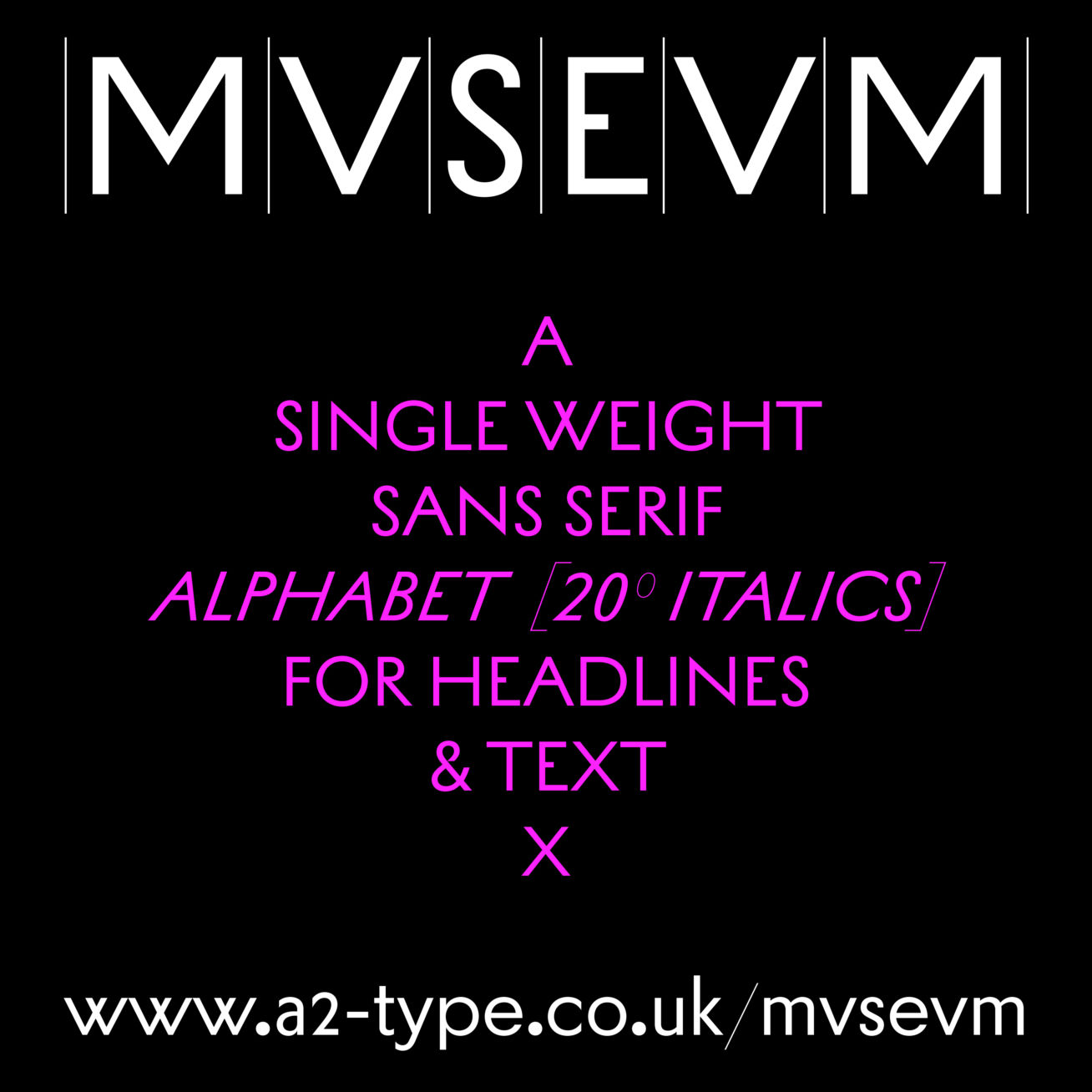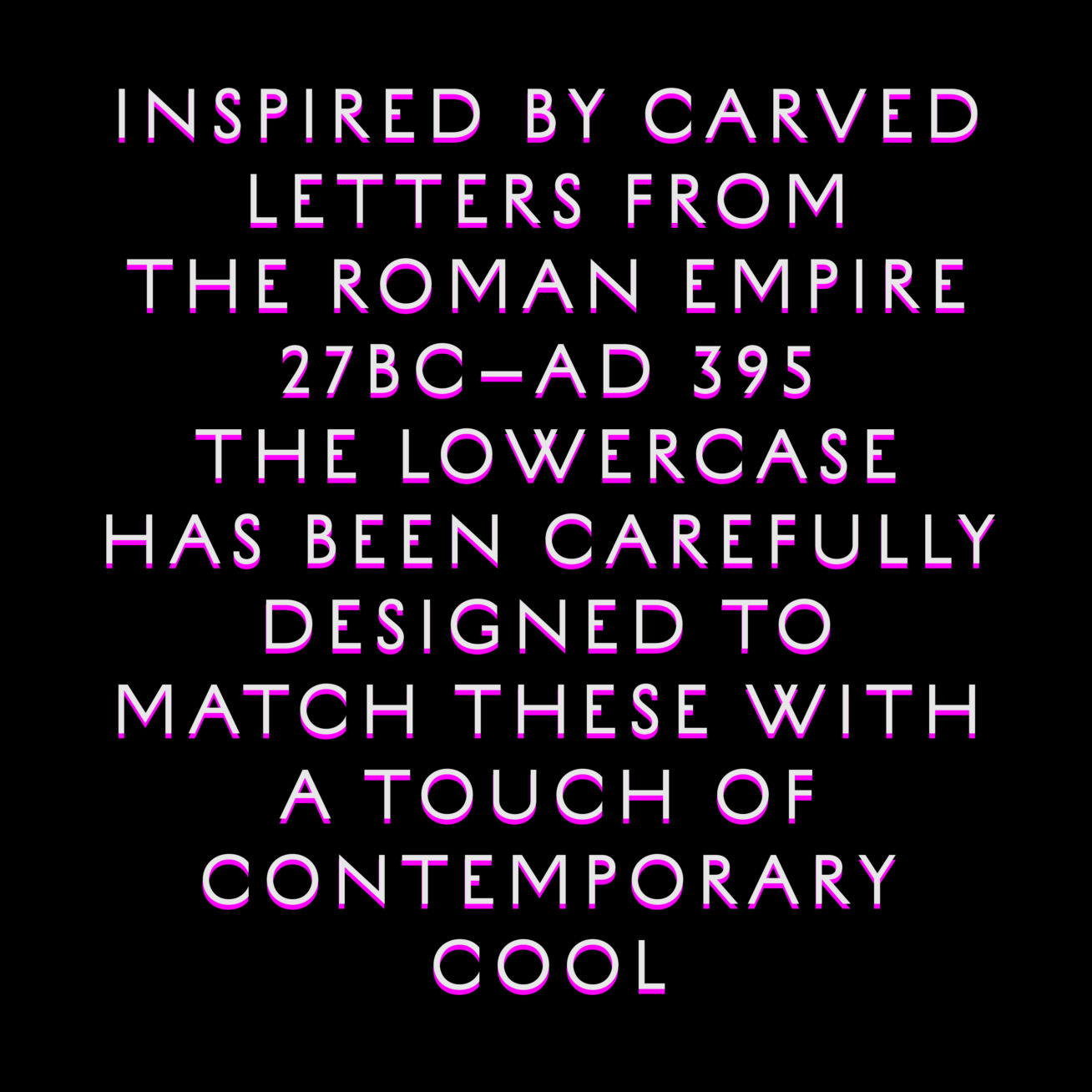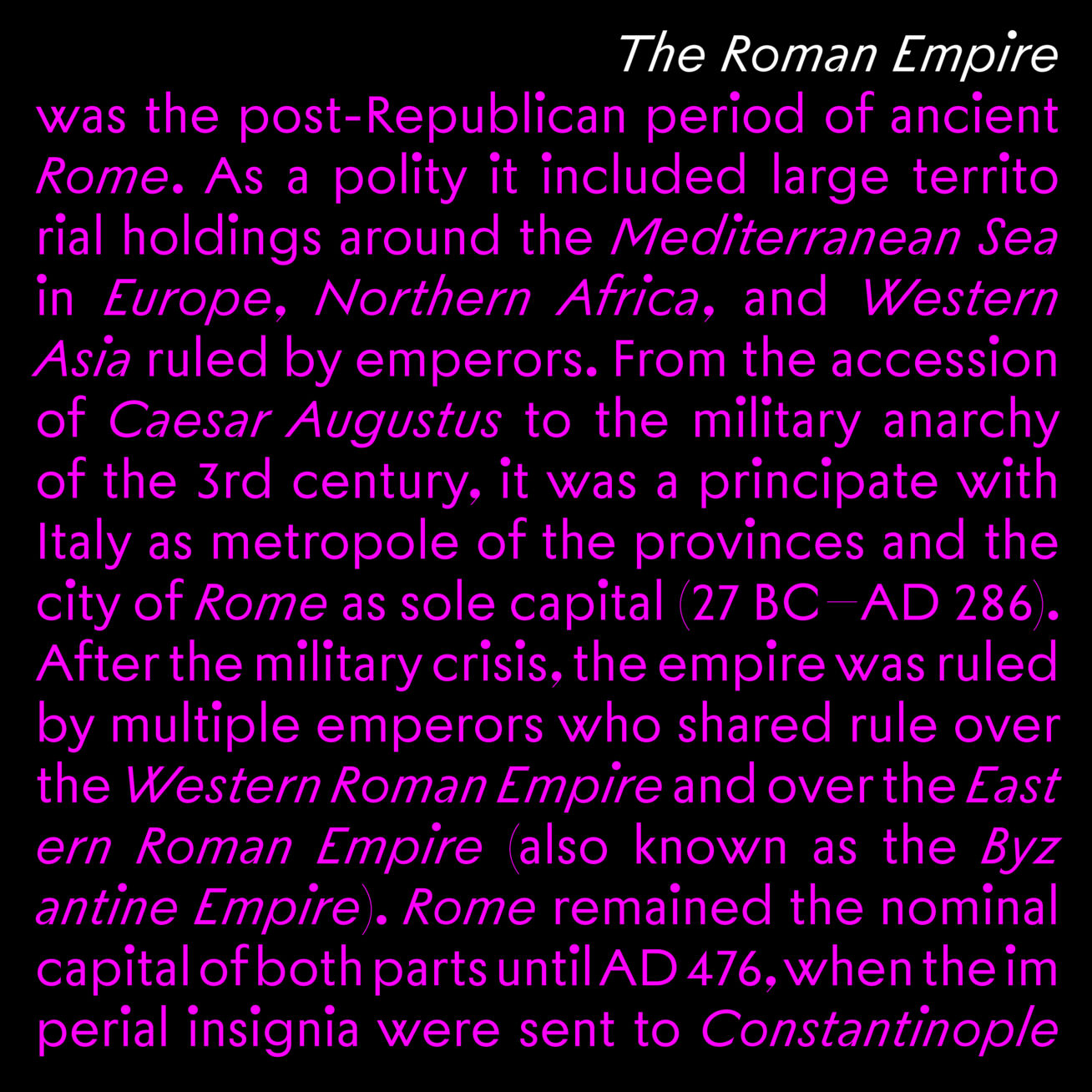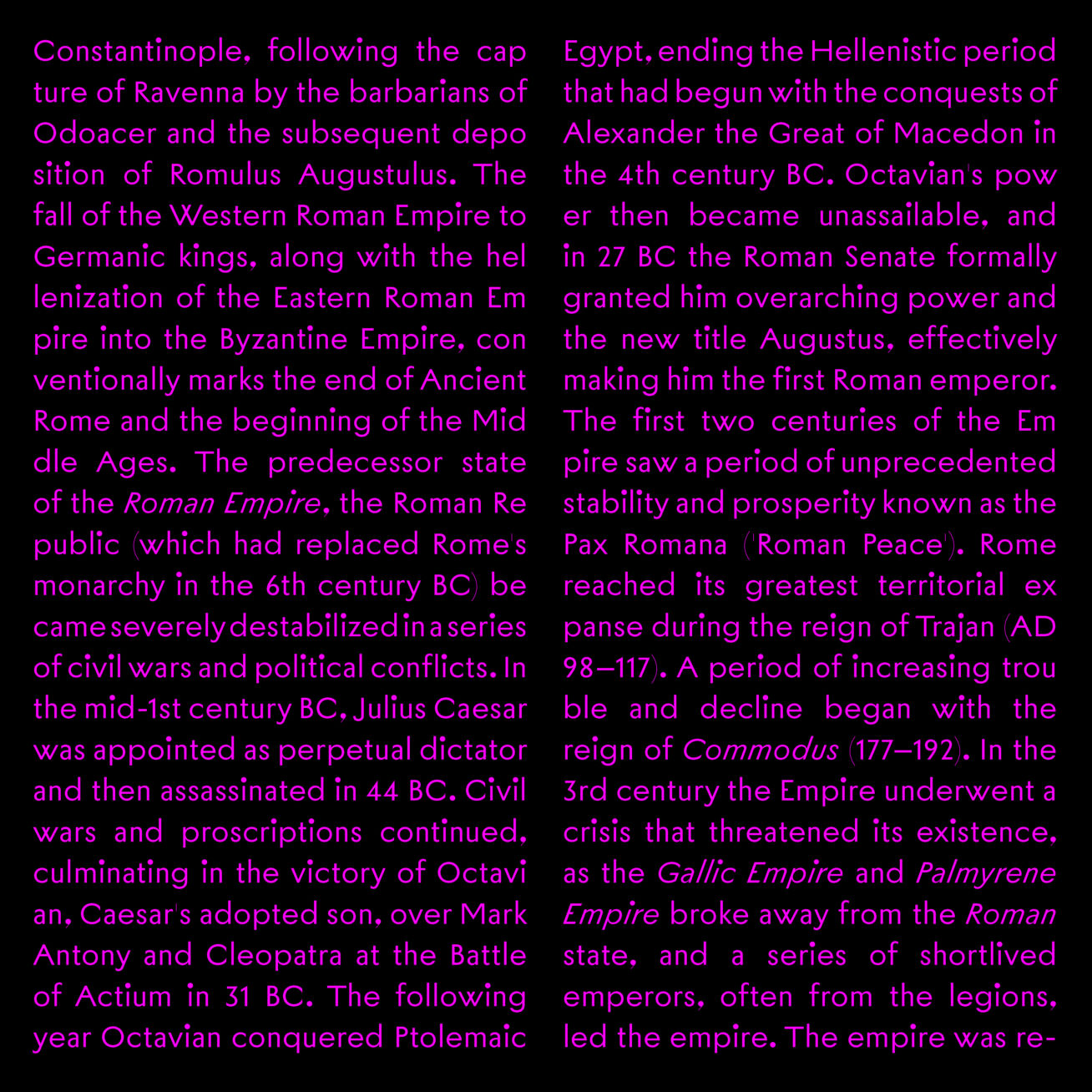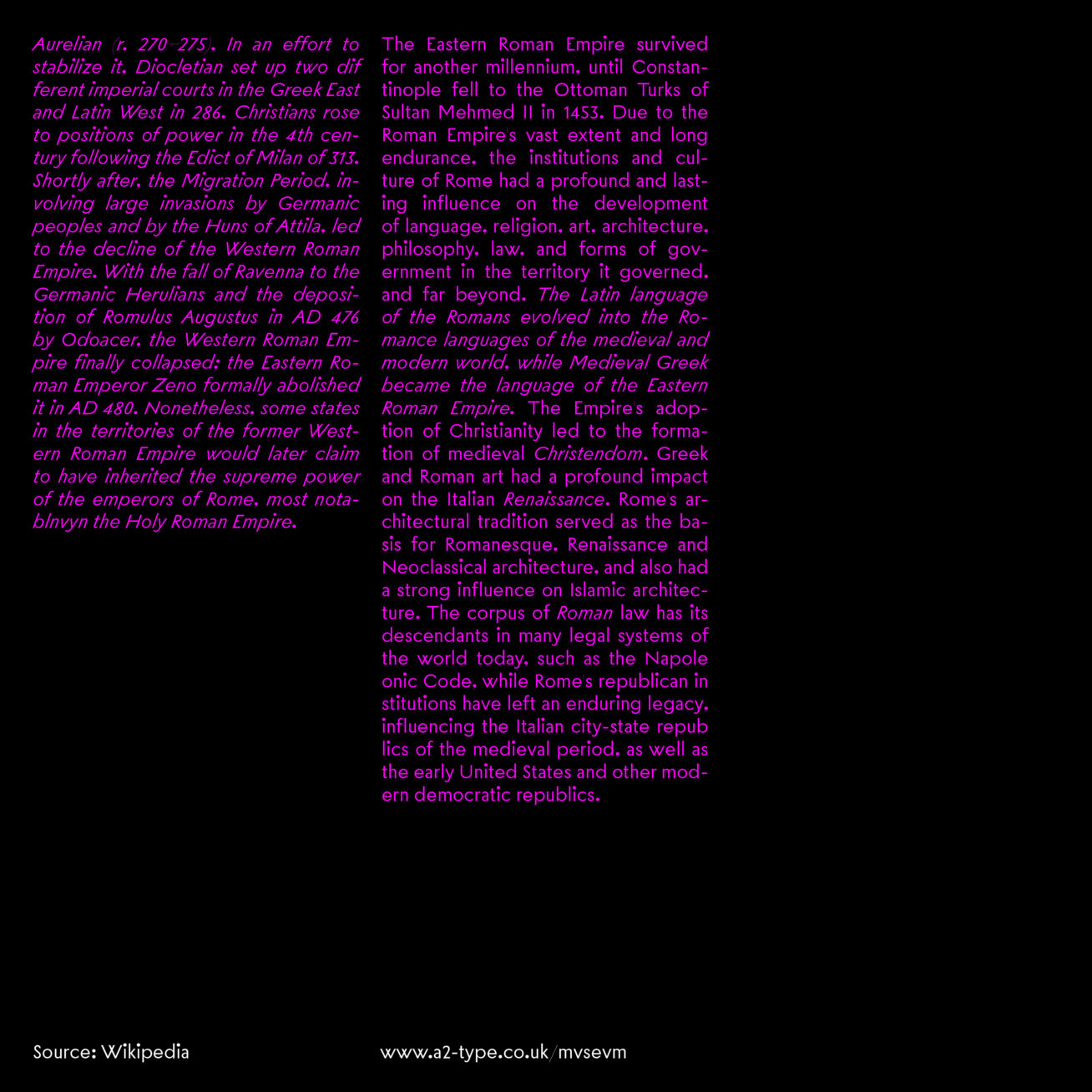
A sans alphabet in five weights designed specifically for headlines and text. Inspired by hand-carved capital letters from the Roman empire (27 BC – AD 395). The lowercase has been carefully designed to match the historically inspired uppercase, with a touch of contemporary cool.
| Font name: | MVSEVM |
| Font category: | Sans |
| Styles: | Regular Medium Bold ExtraBold Black |
| Manufacturer: | A2-TYPE |
| Designer: | Henrik Kubel |